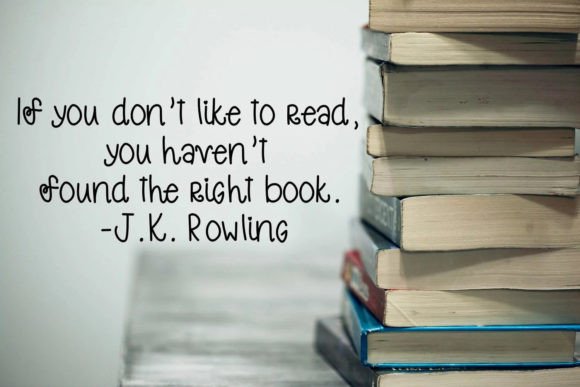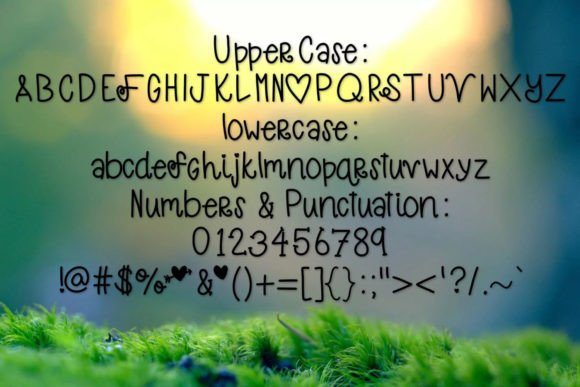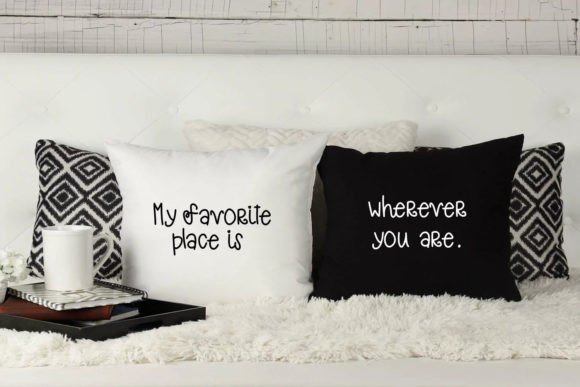
Introduction to Favorite Places Font
Have you ever stared at a blank canvas, unsure of where to start your next creative project? The blank page can be intimidating, but sometimes all it takes is the right font to spark inspiration. For designers and crafters alike, finding the perfect font can be the difference between a mediocre project and a masterpiece.
That’s why we’re excited to introduce the Favorite Places Font, a charming and whimsical handwritten font that’s sure to add a personal touch to your next design. With its lovely hearts, quirky letters, and twirly flourishes, this font is perfect for adding a high-quality, homemade feel to any project. And the best part? It’s a free download, making it an accessible design resource for anyone looking to elevate their creative game.
Whether you’re working on a digital design, a paper crafting project, or even a sign for your favorite coffee shop, the Favorite Places Font is a versatile and valuable addition to your design toolkit. With its transparent background and cute, cursive style, it’s the perfect choice for adding a touch of personality to any creative project.
Key Features of Favorite Places Font
- High-quality design: This font is crafted with attention to detail and precision to provide a visually appealing result for your creative project.
- Transparent background: The font’s transparent background allows for seamless integration with your design, giving you more flexibility and creative control.
- Unique characteristics: The Favorite Places Font features a distinctive, hand-drawn style that adds a touch of personality to your design, making it perfect for creative projects.
- Perfect for maps and travel: The font’s design is specifically inspired by maps and travel, making it an ideal choice for projects related to geography, exploration, and adventure.
Honest Review: Favorite Places Font
I recently stumbled upon the Favorite Places Font, and I must say it’s a great addition to any designer’s toolkit. As a designer, I’m always on the lookout for high-quality fonts that can elevate my creative projects. This font definitely delivers.
One of the things that stands out about the Favorite Places Font is its unique and quirky design. The transparent background and playful style make it perfect for projects that require a bit of whimsy and personality. I’ve used it for a client’s logo design, and it really helped to capture the brand’s tone and personality.
- May not be suitable for formal or professional projects
- Limited character set, which can be a limitation for designers who need a wide range of characters
Overall, I’m really impressed with the Favorite Places Font. It’s a great addition to any designer’s toolkit, and I’d definitely recommend it to fellow designers. Just be aware of its limitations, and use it for the right kind of projects.
Favorite Places Font
To get the most out of the Favorite Places Font, use it for titles, headings, and labels in your design project.
Common use cases include travel brochures, restaurant menus, and event invitations.